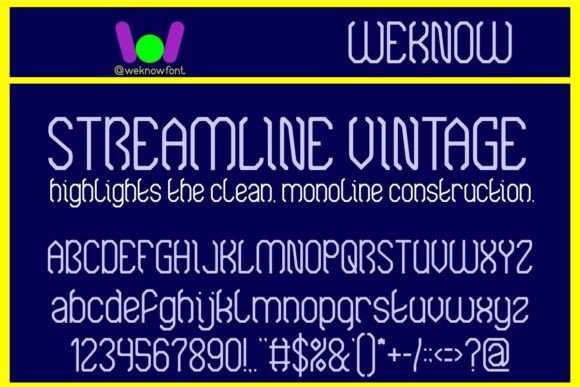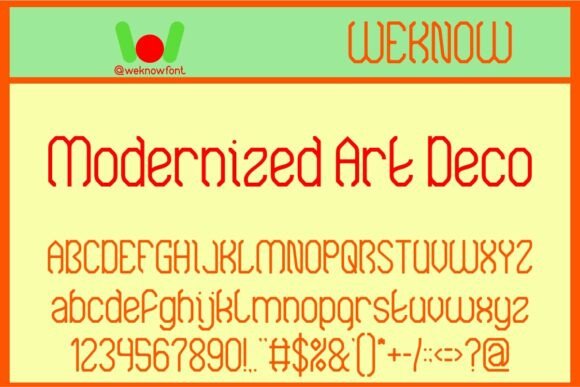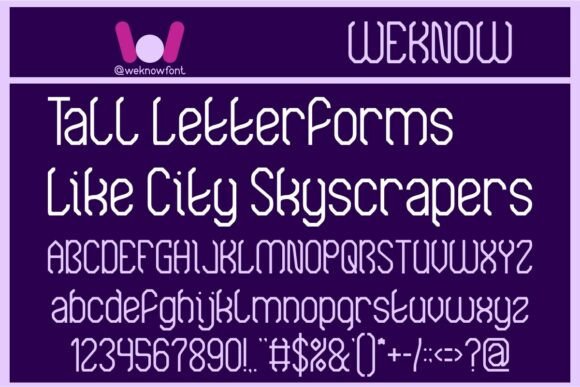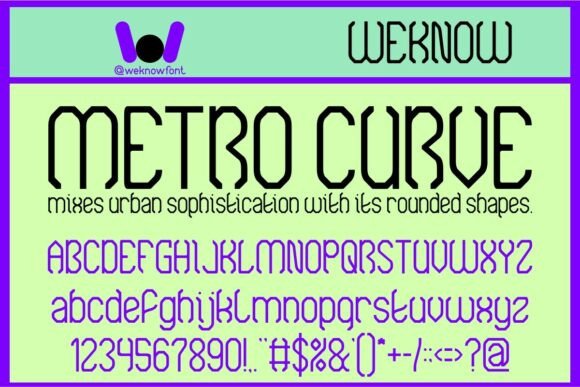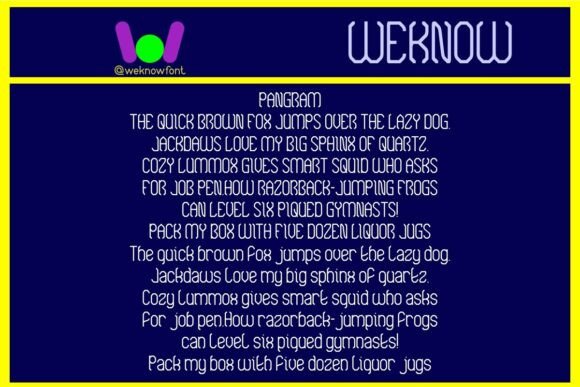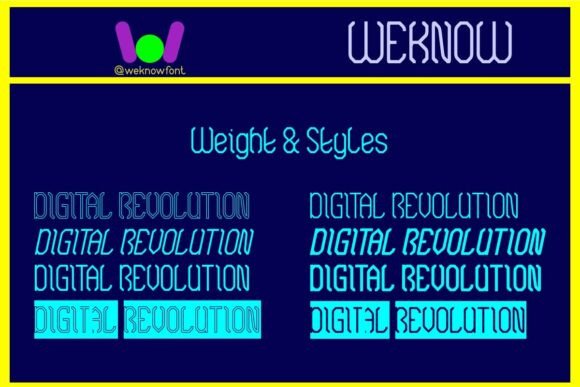
Introduction to Digital Revolution Font Font
Fonts play a crucial role in design, and the Digital Revolution Font font is a typeface that brings both character and versatility to any project. Whether you’re working on a branding project, a website, or a print design, the Digital Revolution Font font offers a unique style that can elevate your work.
| 📌 Font Name | Digital Revolution Font |
| 👤 Author | weknow |
Experience a seamless fusion of techno and sci-fi aesthetics with the Digital Revolution font.
This design masterpiece incorporates the timeless elegance of Art Deco influences, manifesting in a collection of geometric shapes crafted with monoline strokes More than just a font, it stands out as a striking display feature, effortlessly fitting into a logotype, headline, or corporate branding.
Key Features of Digital Revolution Font Font
Why Choose Digital Revolution Font Font?
The Digital Revolution Font font is more than just a typeface – it’s a design tool that helps you communicate your message with style and clarity. Its unique character set and versatile design make it suitable for a wide range of applications, from elegant invitations to bold headlines.
With its carefully crafted letterforms and balanced proportions, the Digital Revolution Font font ensures readability and visual appeal across all mediums.
What makes Digital Revolution Font font special?
The Digital Revolution Font font stands out with its unique design, exceptional readability, and versatility across various design applications.